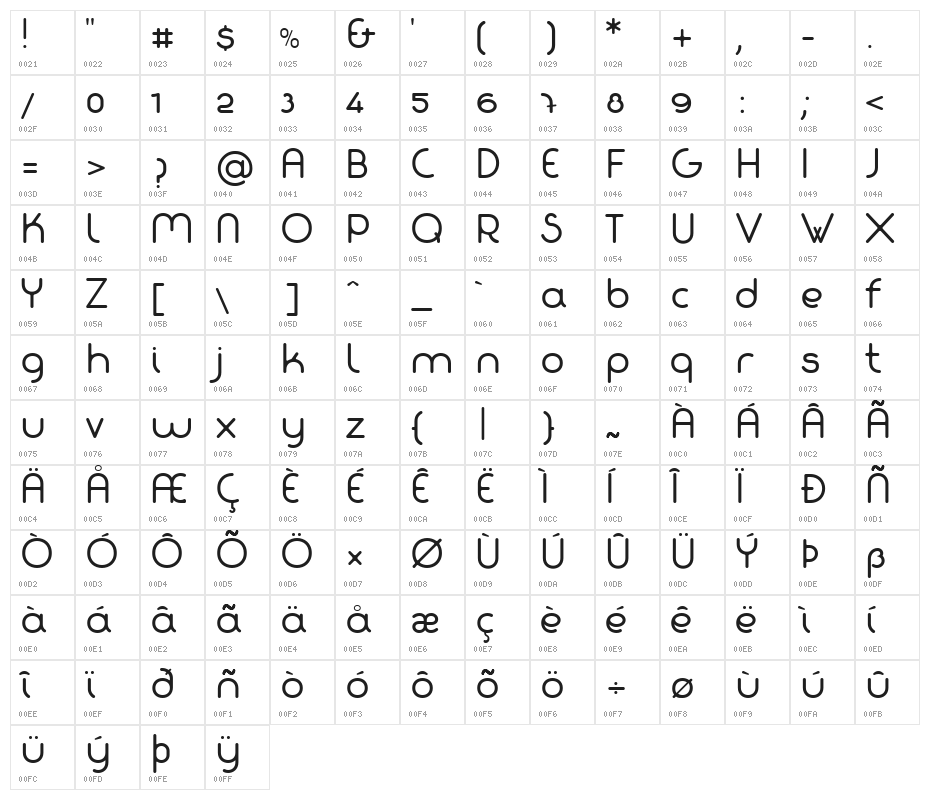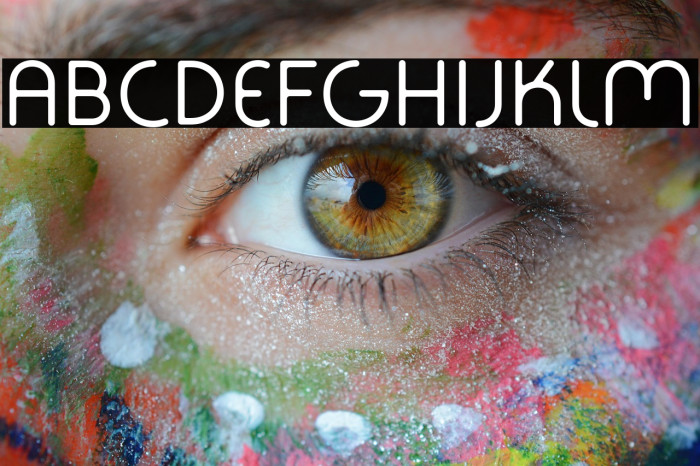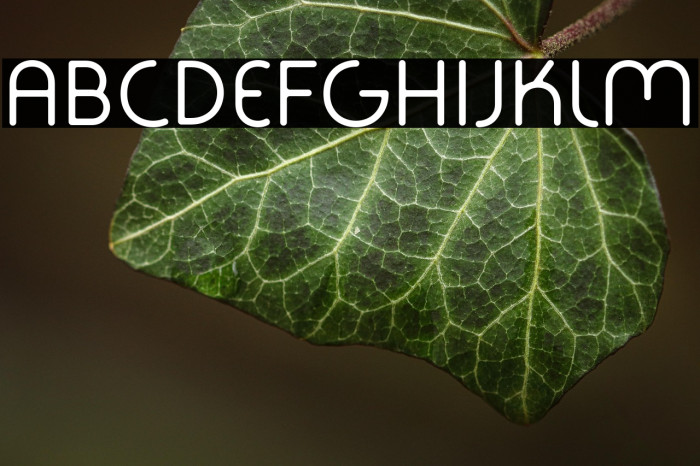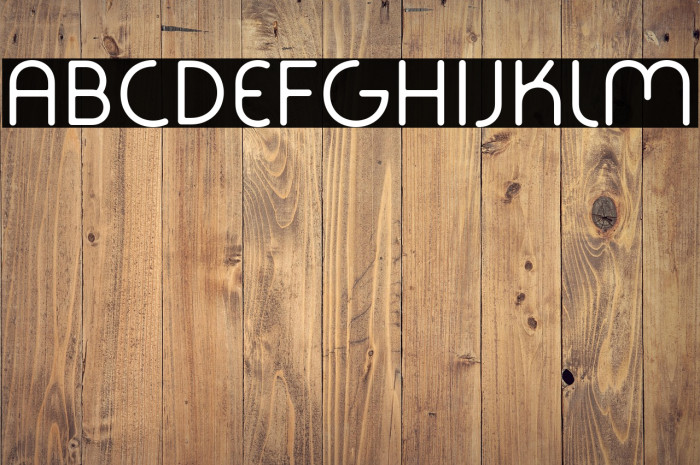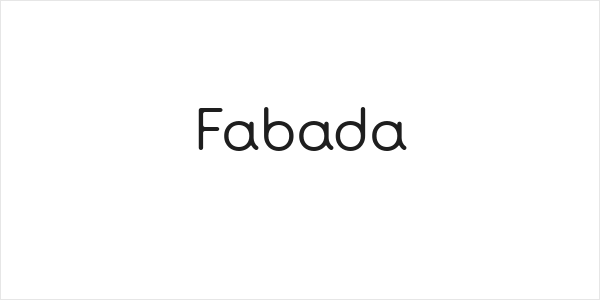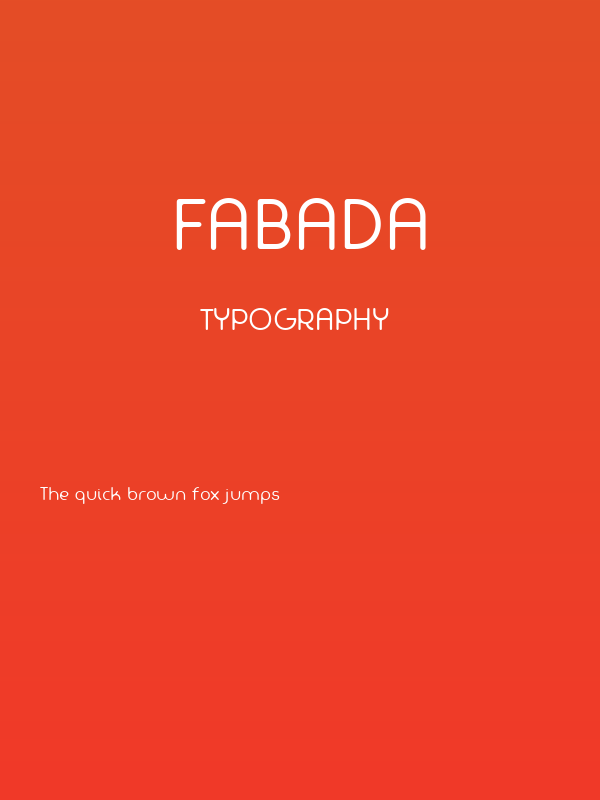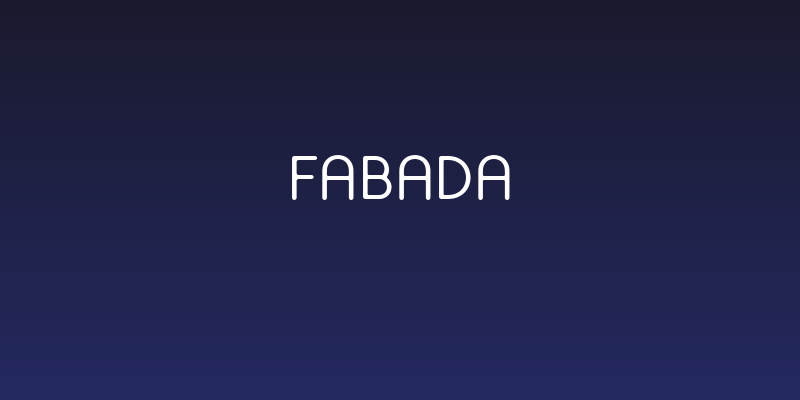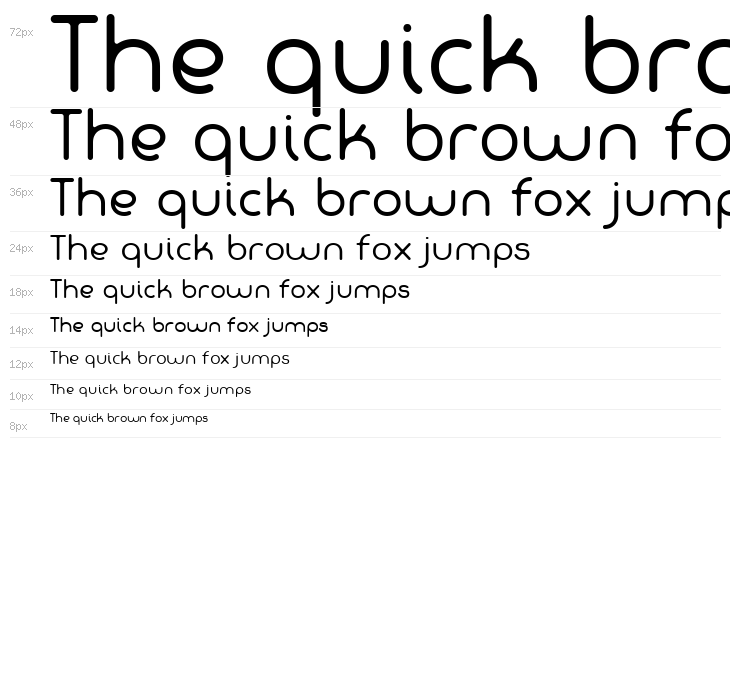
Fabada Font
Fabada Description
This font features a modern, rounded design with smooth curves and a clean, minimalist aesthetic. The characters are evenly spaced, providing a balanced and harmonious look. The uppercase and lowercase letters maintain a consistent style, with rounded edges that give a friendly and approachable feel. The numerals and special characters follow the same design principles, ensuring uniformity across all glyphs. This font is versatile and can be used in various design contexts, from digital interfaces to print media.
| Proposed Projects | Ideal for branding, user interfaces, children's books, and modern advertising campaigns. |